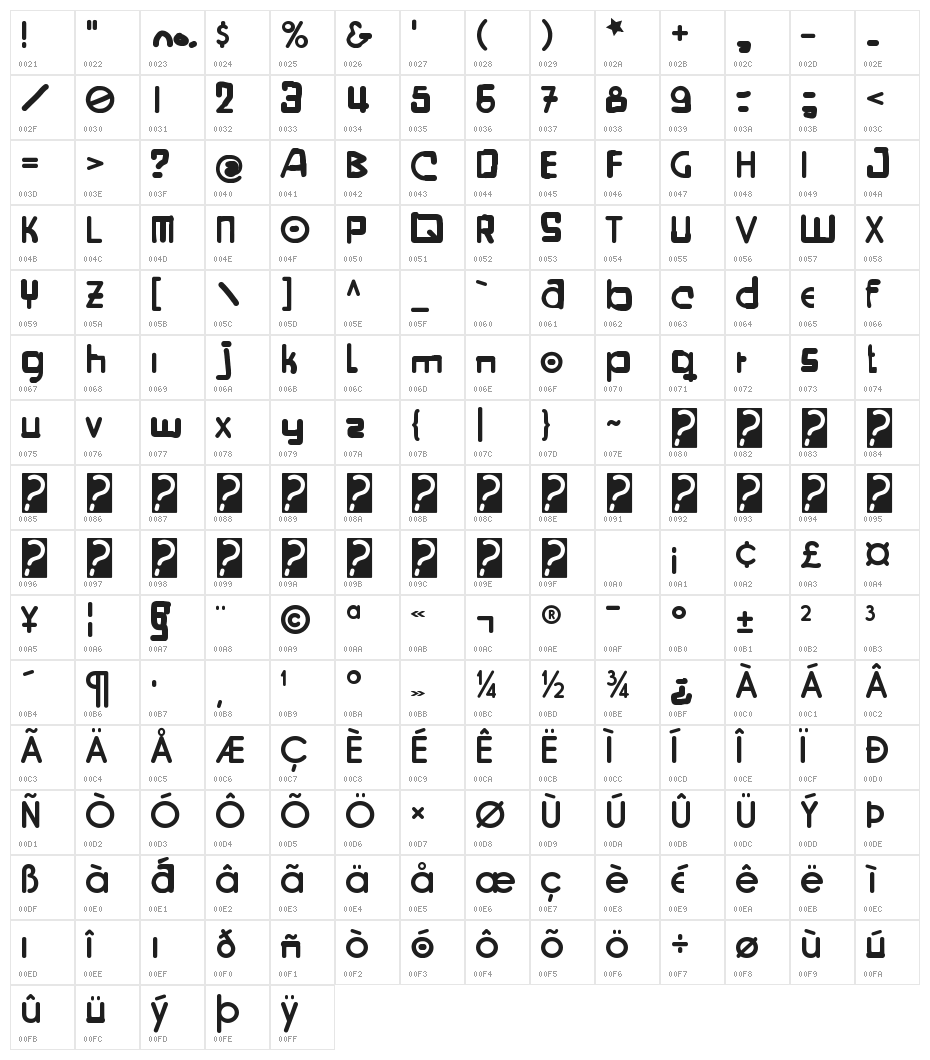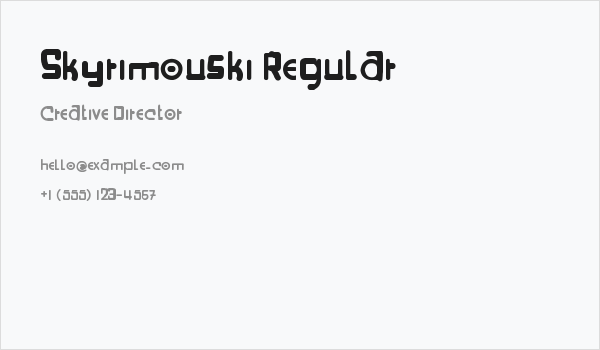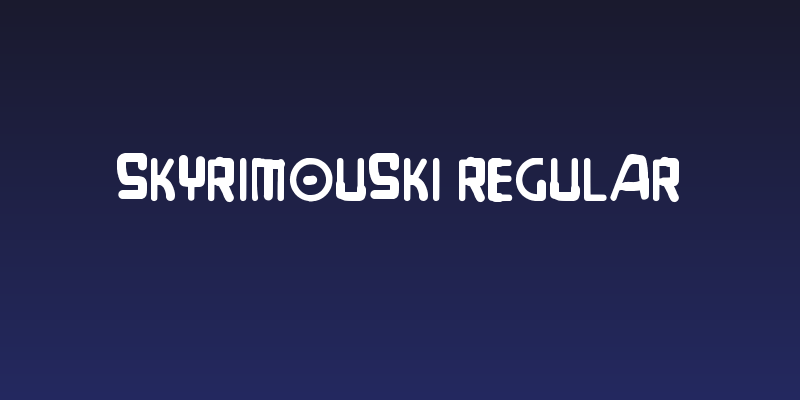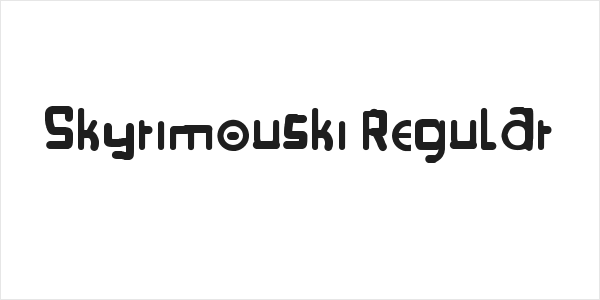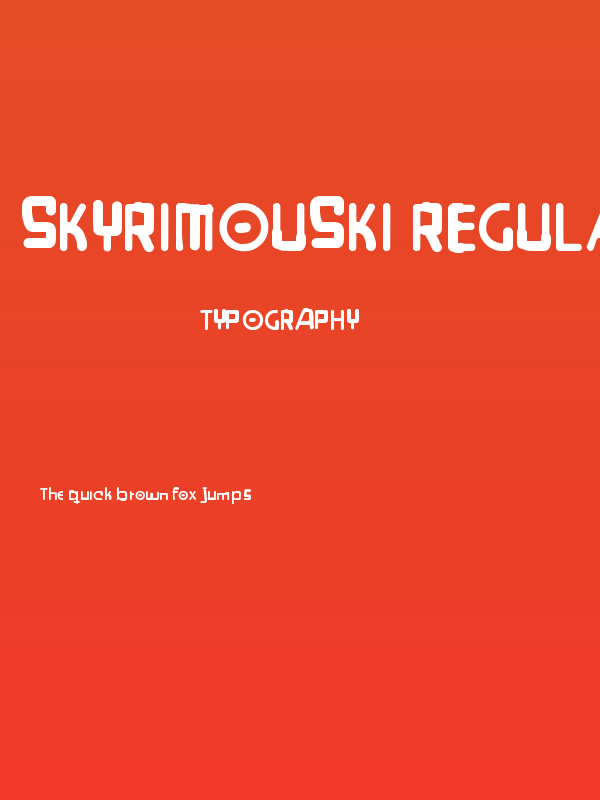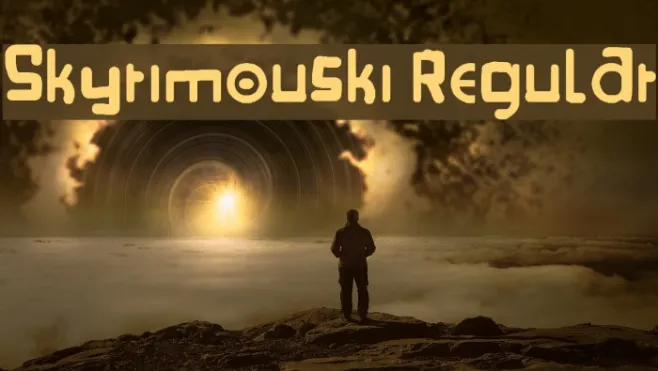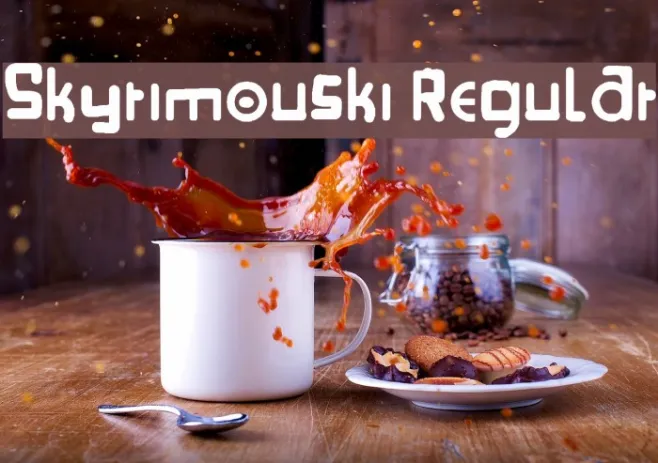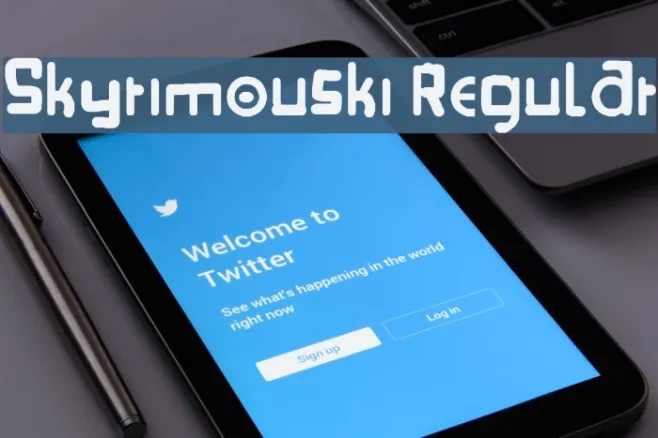
Skyrimouski Regular Font
Skyrimouski Regular Description
This font features a bold and playful design with a unique, hand-drawn aesthetic. The characters are rounded and slightly irregular, giving them a whimsical and approachable feel. The uppercase letters are bold and prominent, while the lowercase letters maintain a consistent style that complements the uppercase. Numbers and special characters are designed with the same playful touch, ensuring a cohesive look across all text. The font's thick strokes and rounded edges make it highly legible, even at smaller sizes, while its distinctive style adds personality to any project.